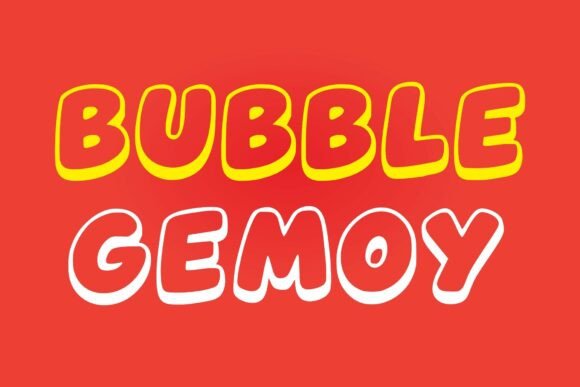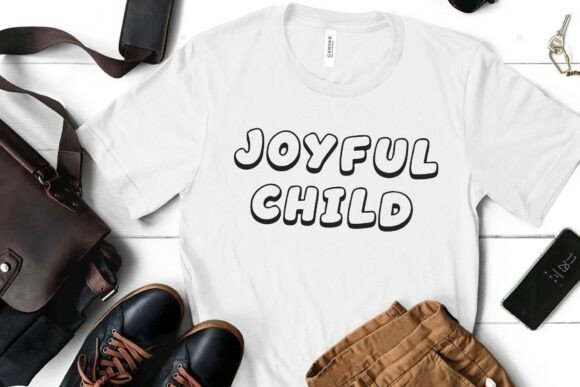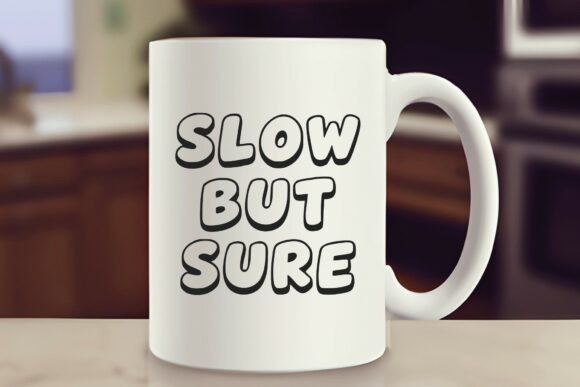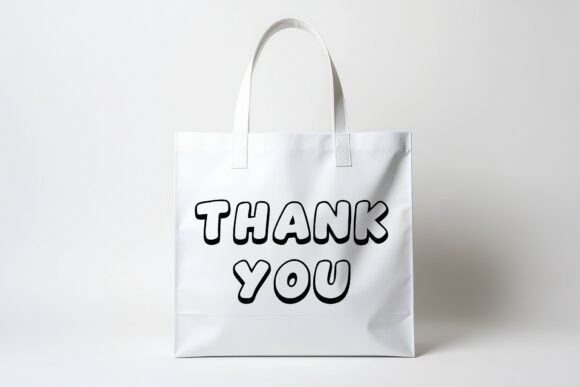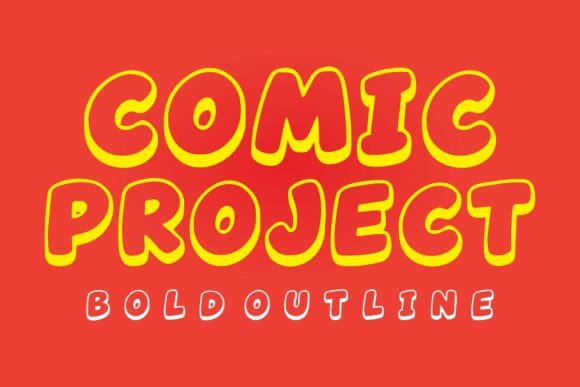
Introducing Comic Project Font: A Playful and Bold Display Font
Are you looking for a font that can add a touch of fun and playfulness to your designs? Look no further than the Comic Project Font, a bold and energetic display font that’s perfect for creative projects. Inspired by comic books and cartoon lettering, this font features thick rounded letters with a strong outline effect that’s sure to grab attention.
Key Features of Comic Project Font
• Bold and Playful Design: The Comic Project Font boasts a chunky bubble shape with smooth curves, making it perfect for designs that require a fun and energetic look.
• Thick Outline Style: The font features a thick outline effect that gives it a strong and eye-catching appearance.
• Inspired by Comic Books and Cartoons: The font’s design is inspired by classic comic books and cartoon lettering, making it ideal for projects that require a nostalgic or retro look.
Use Cases for Comic Project Font
The Comic Project Font is versatile and can be used in a variety of design projects, including:
• Kids’ Projects: The font’s playful and fun design makes it perfect for kids’ projects, such as educational materials, activity sheets, and children’s book illustrations.
• Posters and Flyers: The font’s bold and eye-catching design makes it ideal for posters and flyers that require attention-grabbing headlines.
• Branding and Logo Design: The font’s unique and playful design makes it perfect for branding and logo design projects that require a fun and energetic look.
• Stickers and Thumbnails: The font’s bold and colorful design makes it ideal for stickers and thumbnails that require a fun and attention-grabbing look.
• Comic Covers and Merchandise: The font’s comic book-inspired design makes it perfect for comic covers, merchandise, and other projects that require a bold and playful look.
• Social Media Graphics: The font’s fun and energetic design makes it ideal for social media graphics, such as Facebook posts, Instagram stories, and Twitter headers.
Benefits of Using Comic Project Font
Using the Comic Project Font in your designs offers several benefits, including:
• Unique and Playful Design: The font’s bold and playful design sets it apart from other fonts and adds a touch of fun to your designs.
• Easily Readable: The font’s thick outline effect and chunky bubble shape make it easily readable, even at small sizes.
• Versatile: The font’s versatility makes it perfect for a wide range of design projects, from kids’ projects to branding and logo design.
• Time-Saving: The font’s bold and eye-catching design saves you time and effort in creating your own custom font or illustrations.
In conclusion, the Comic Project Font is a fun, bold, and playful display font that’s perfect for creative designs. Its chunky bubble shape, smooth curves, and thick outline effect make it ideal for kids’ projects, posters, branding, stickers, thumbnails, comic covers, merchandise, and social media graphics. With its unique and playful design, easily readable letters, and versatility, this font is a must-have for designers and crafters looking to add a vibrant and cheerful touch to their designs.